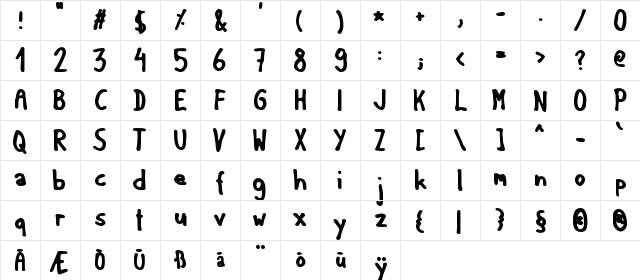
GF Matilda normal Normal
Design Context for GF Matilda normal Typeface
GF Matilda normal takes a measured approach to typography — its balanced proportions and neutral character make it a reliable workhorse for both digital and print work.
Pro Tip: Use GF Matilda normal in both headline and body roles to test its range before committing to a single application.